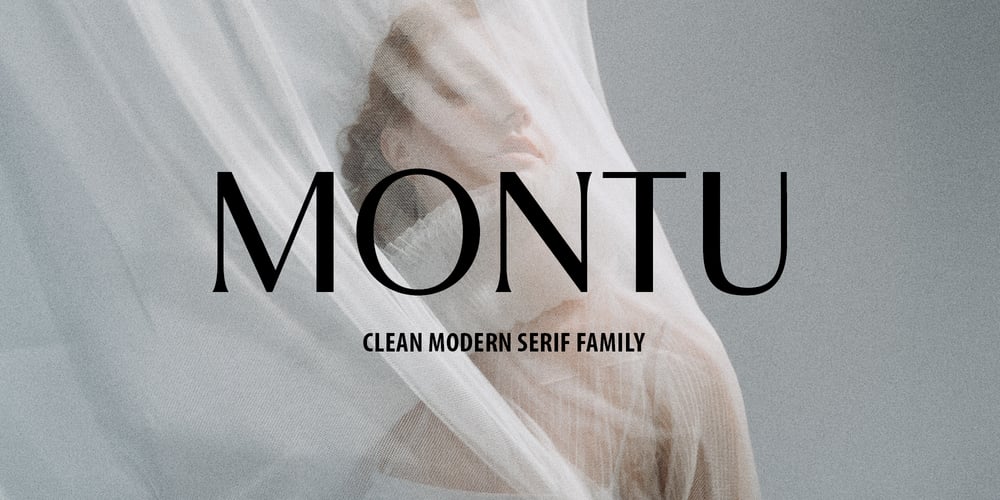
Montu Font Family was designed by Dmitrii Chirkov and published by Supfonts. Montu contains 10 styles and family package options. Montu is an elegant, modern sans serif font family. It includes upright and Italic style, each of them has five weights from thin to bold. This is a multi-functional font that is perfect for any projectMontu Font Features:- Full Set of standard alphabet and punctuation- PUA Encoded – no special software needed to access extra characters- Language support: All European languages- Multilingual Characters AÁĂÂÄÀĀĄÅÃÆBCĆČÇĊDÐĎĐEÉĚÊËĖÈĒĘẼFGĞĢĠḠHĦIIJÍÎÏİÌĪĮĨJKĶLĹĽĻŁMNŃŇŅÑ OÓÔÖÒŐŌØÕŒPÞQRŔŘŖSŚŠŞȘẞTŤŢȚUÚÛÜÙŰŪŲŮŨVWẂŴẄẀXYÝŶŸỲỸZŹŽŻ aáăâäàāąåãæbcćčçċdðďđeéěêëėèēęẽfgğģġḡhħiıíîïìijīįĩjȷkķlĺľļłmnńňņñoóôöòőōøõœpþ qrŕřŗsśšşșßtťţțuúûüùűūųůũvwẃŵẅẁxyýŷÿỳỹzźžżThanks so much for checking out my shop, and please get in touch if you have any questions!Don’t forget to subscribe so you don’t miss out on the new awesome fontsDima